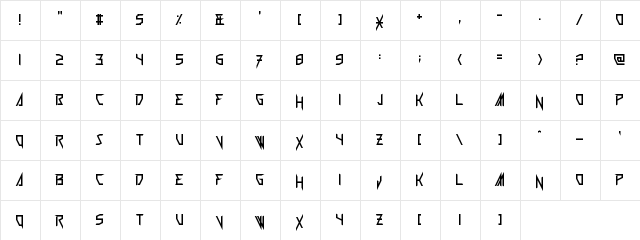
Wickermanor Regular
Designer: Andrew McCluskey
Design Context for Wickermanor
Wickermanor is a composed and adaptable typeface that performs quietly and consistently across a wide range of design contexts.